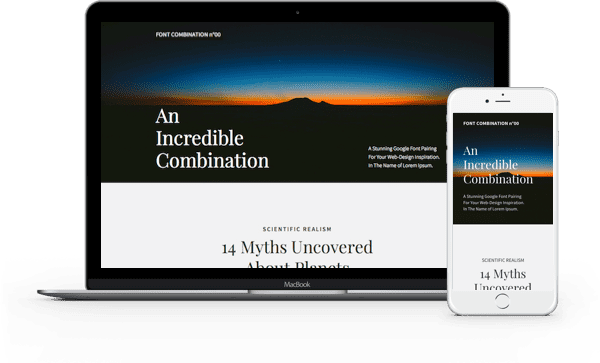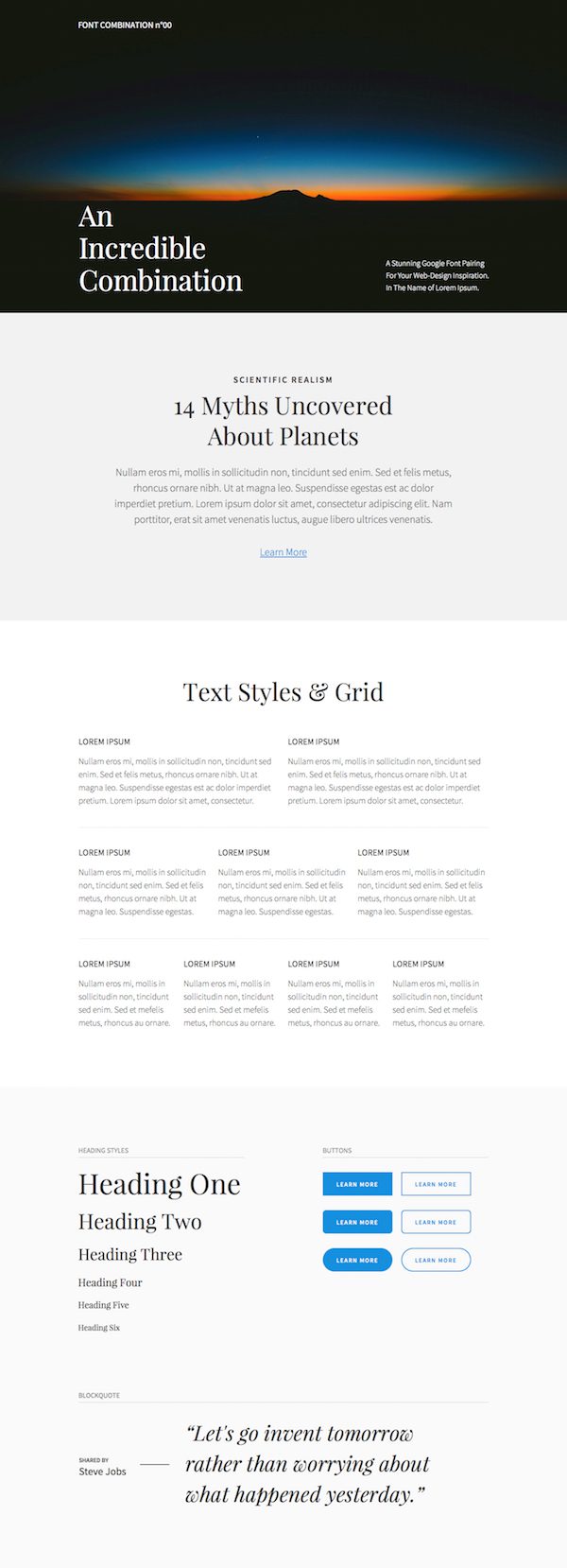
Free Divi Font Combination Layout Pack: 1 Beautiful Layout Design, 10 Ideal Font Pairings
With the Divi portability system’s ability to encode images and import/export complete layouts in a matter of seconds, it may be easy to forget that focusing on other pre-configured settings–such as font settings–can provide an incredible amount of design value. That’s why in today’s post we’re giving away a unique kind of layout pack. One that focuses on making the best font pairings possible with Divi’s font selection instantly available via the Divi Library.
This layout pack consists of one beautiful new page design rendered in ten different font pairing variations. Each font combination layout provides a style guide for how that font pairing should be used both on the page you’re building and site-wide via the customizer settings in Theme Customizer > General Settings > Typography as well as anywhere else you need to configure font settings.
10 Beautiful Divi Font Combinations
The first layout you see below will be called Font Combination #00 in your Divi Library after you have imported the layout pack above. This is the only layout of the ten provided that will have an image included. It’s intended to show you the potential of these font combinations and the elevated sense of style they can bring to more “finished” content.
Font Combination #00, Playfair Display + Source Sans Pro
All of the other layouts, named “Font Combination” #01-09, are previewed below. Just as with any layout you can use these to jumpstart your design process while also using them as a style guide for how best to configure Divi’s font settings across your entire website.
Font Combination #01, Roboto Slab + Roboto
Font Combination #02, PT Serif + PT Sans
Font Combination #03, Lato + Lora
Font Combination #04, Montserrat + Crismon Text
Font Combination #05, Nunito + Lora
Font Combination #06, Droid Sans + Droid Serif
Font Combination #07, Lora + Source Sans Prof
Font Combination #08, Playfair Display + Open Sans
Font Combination #09, PT Sans + Open Sans